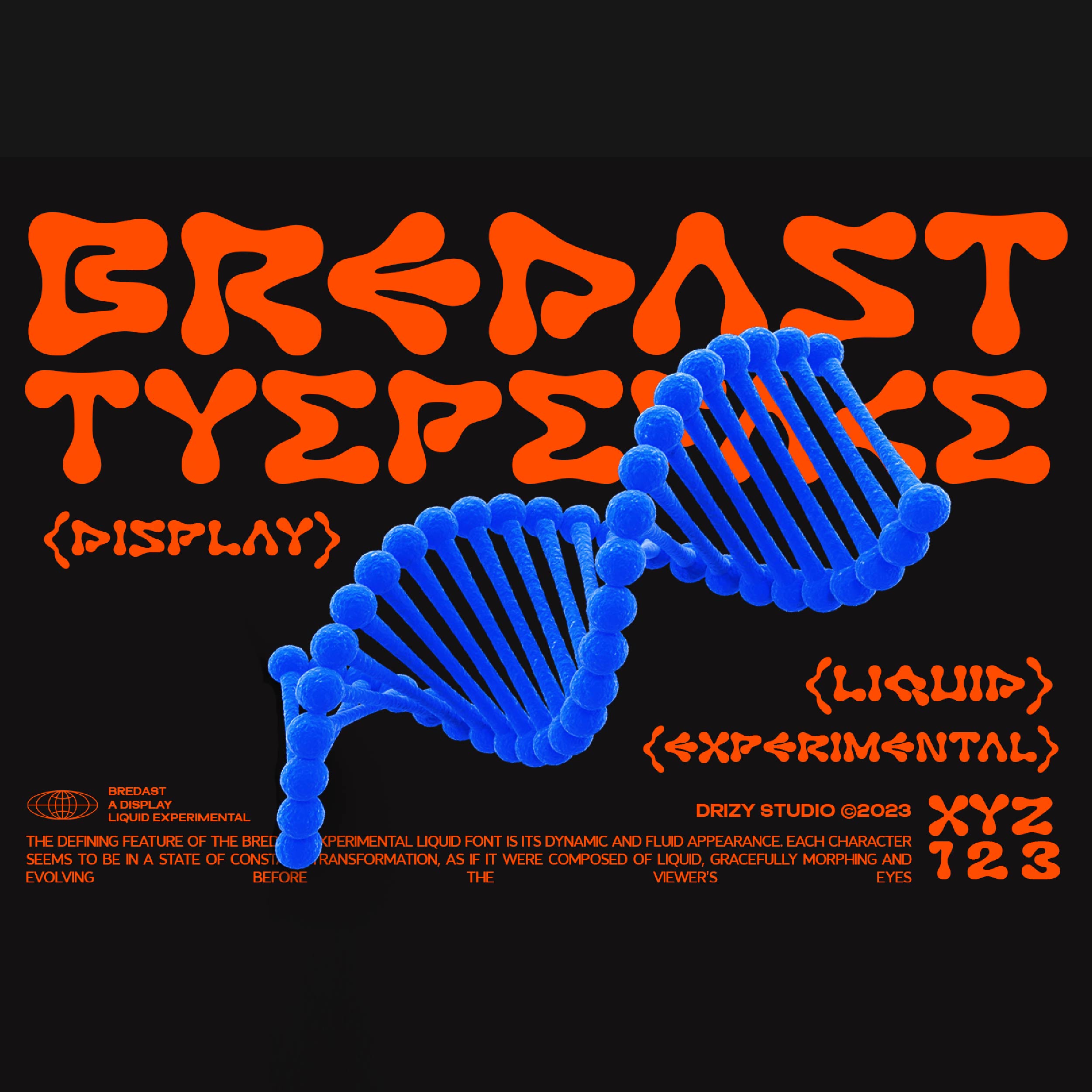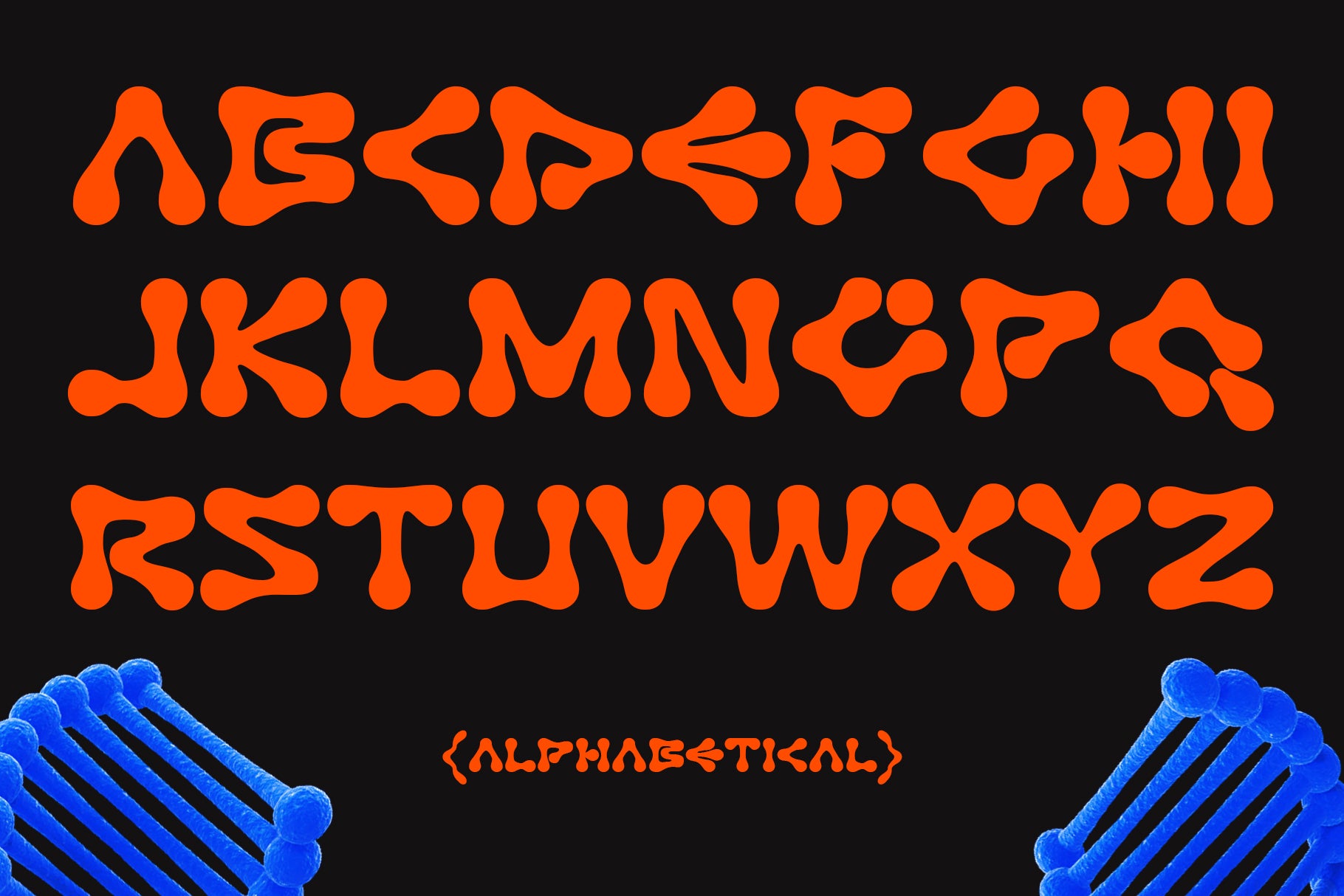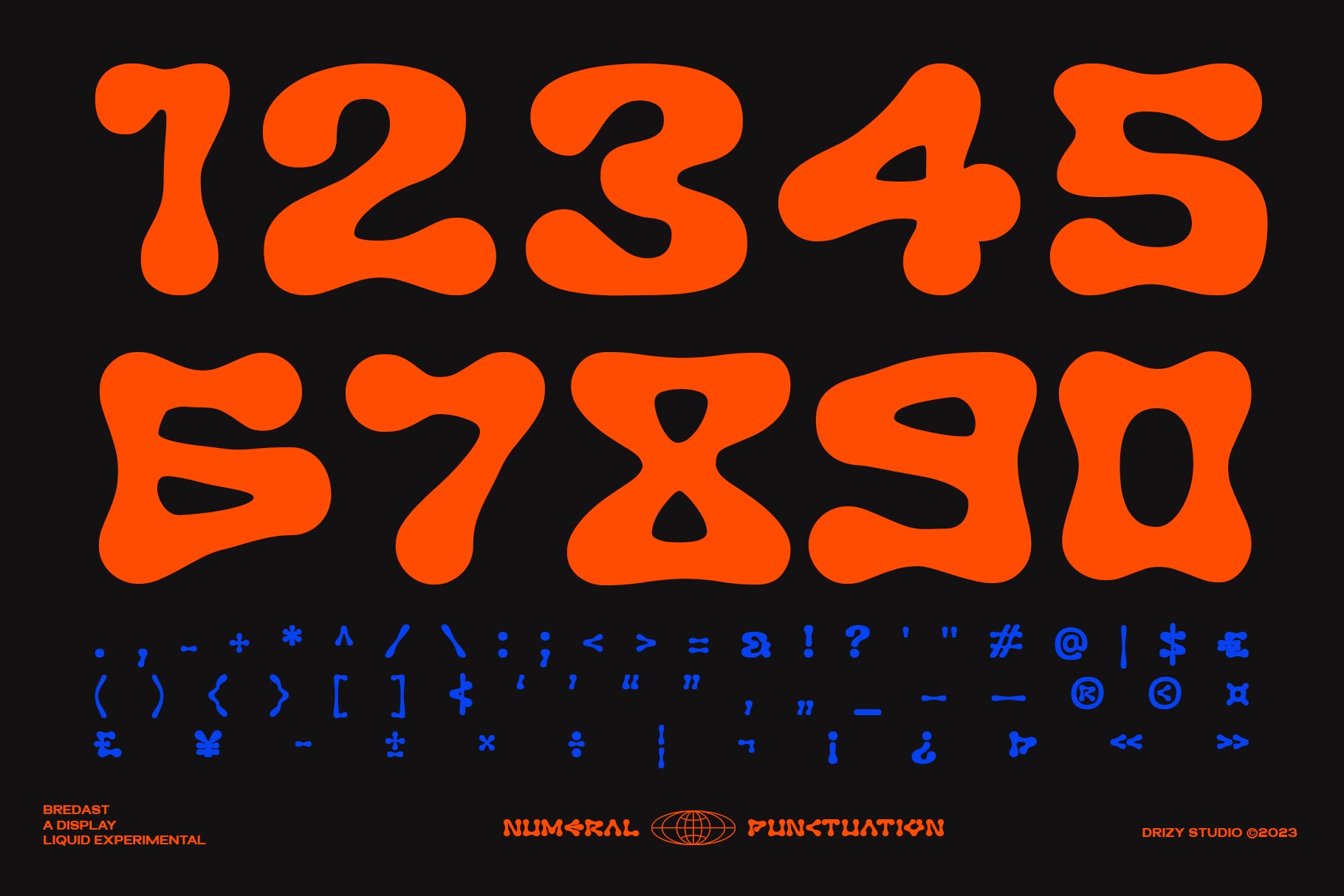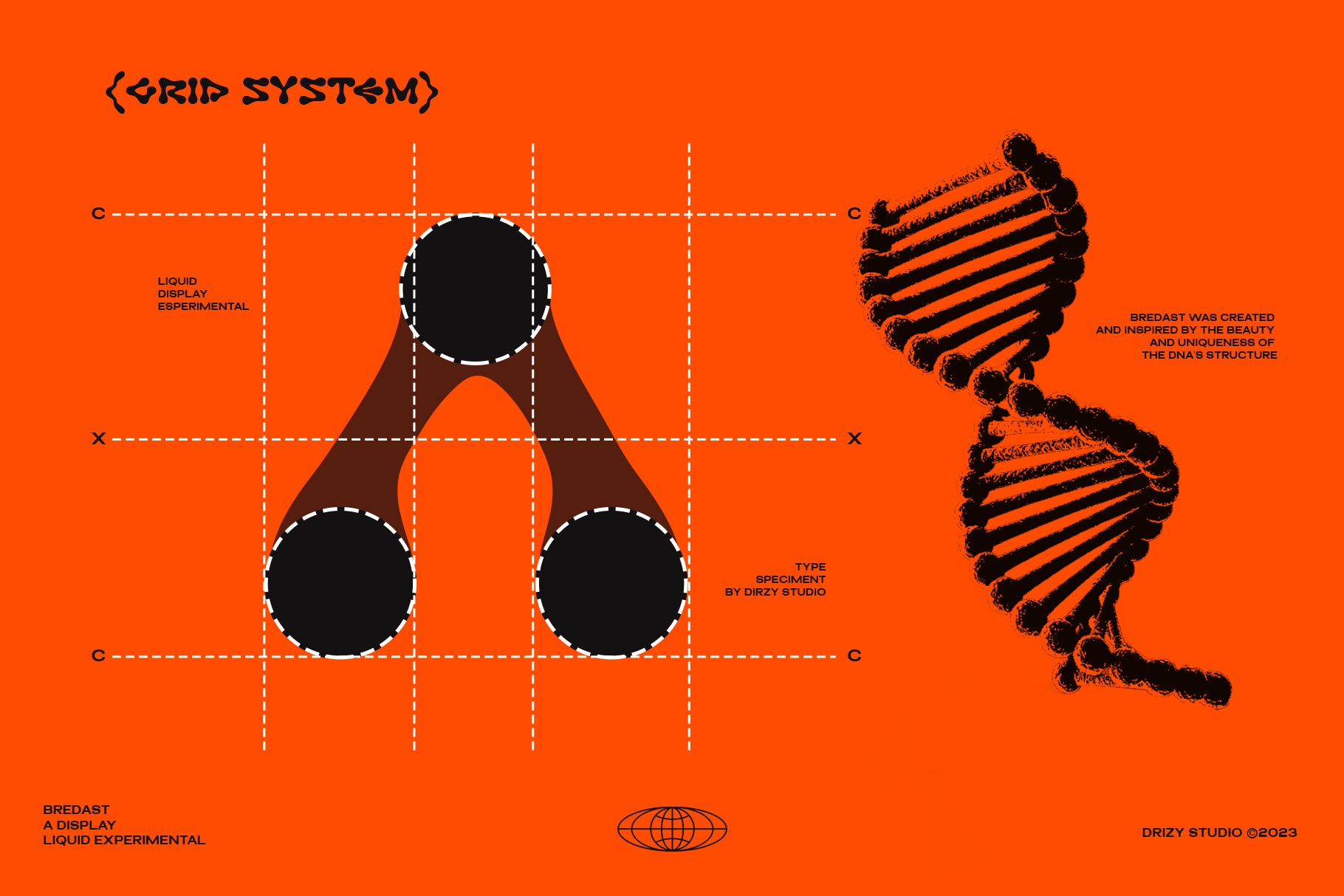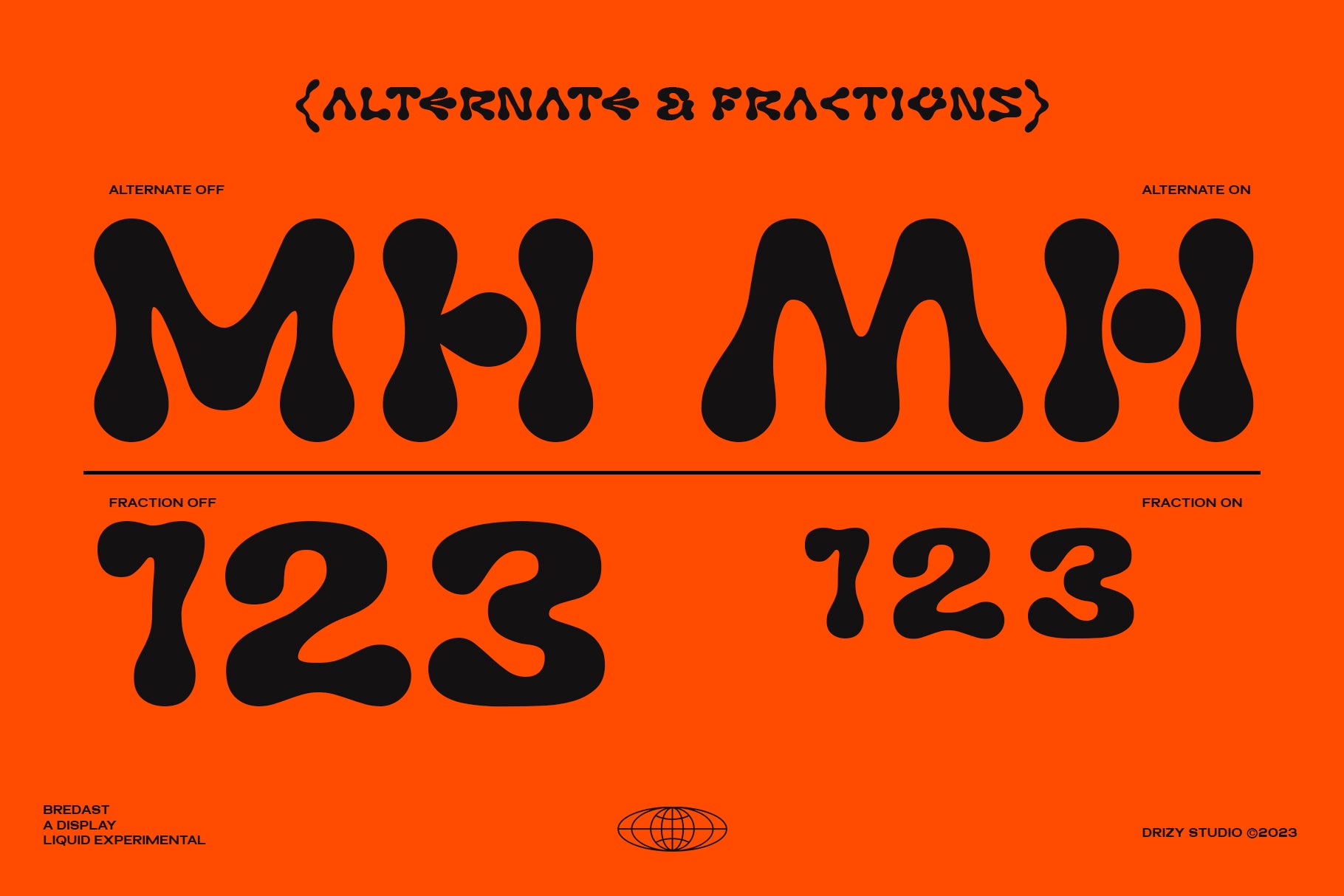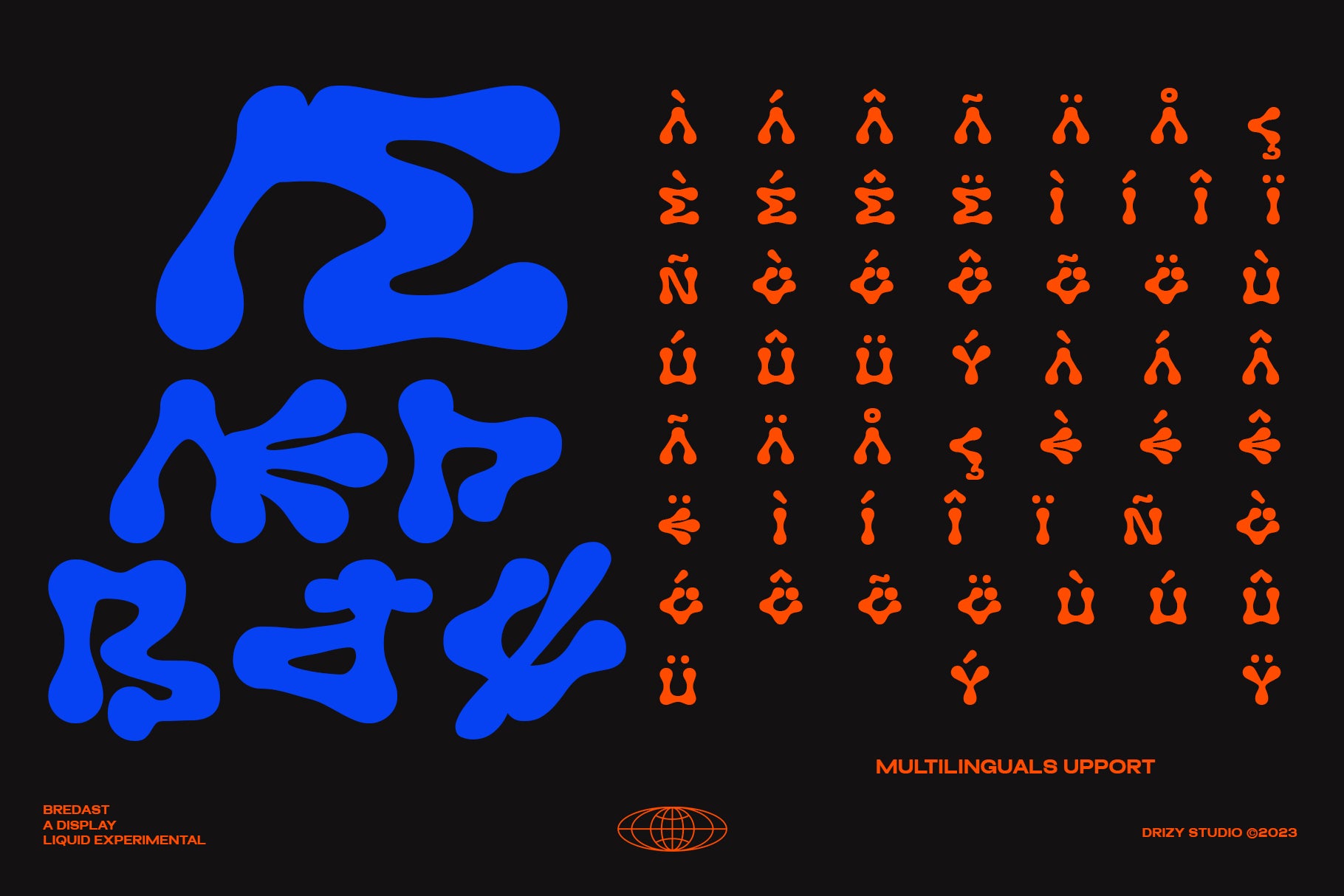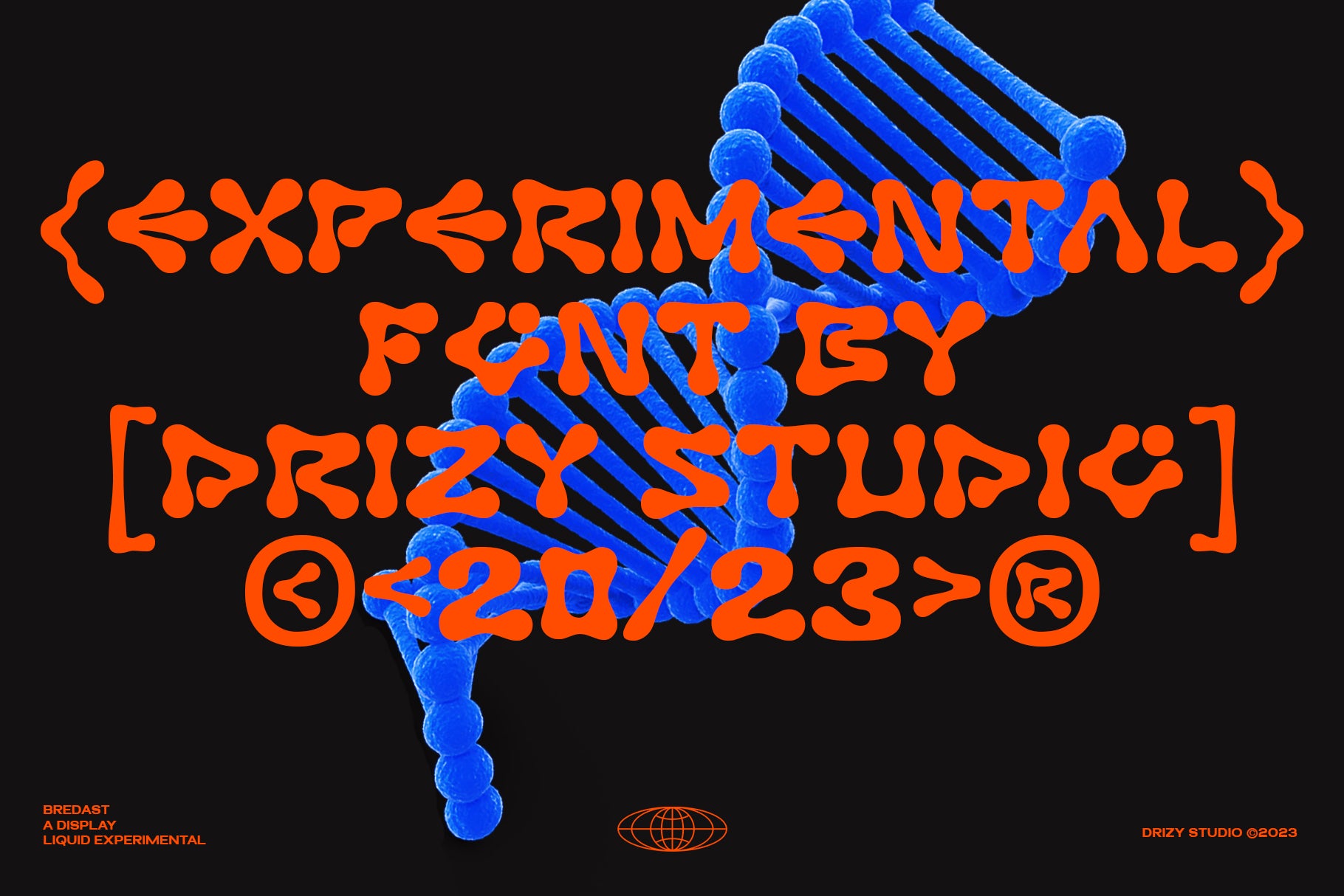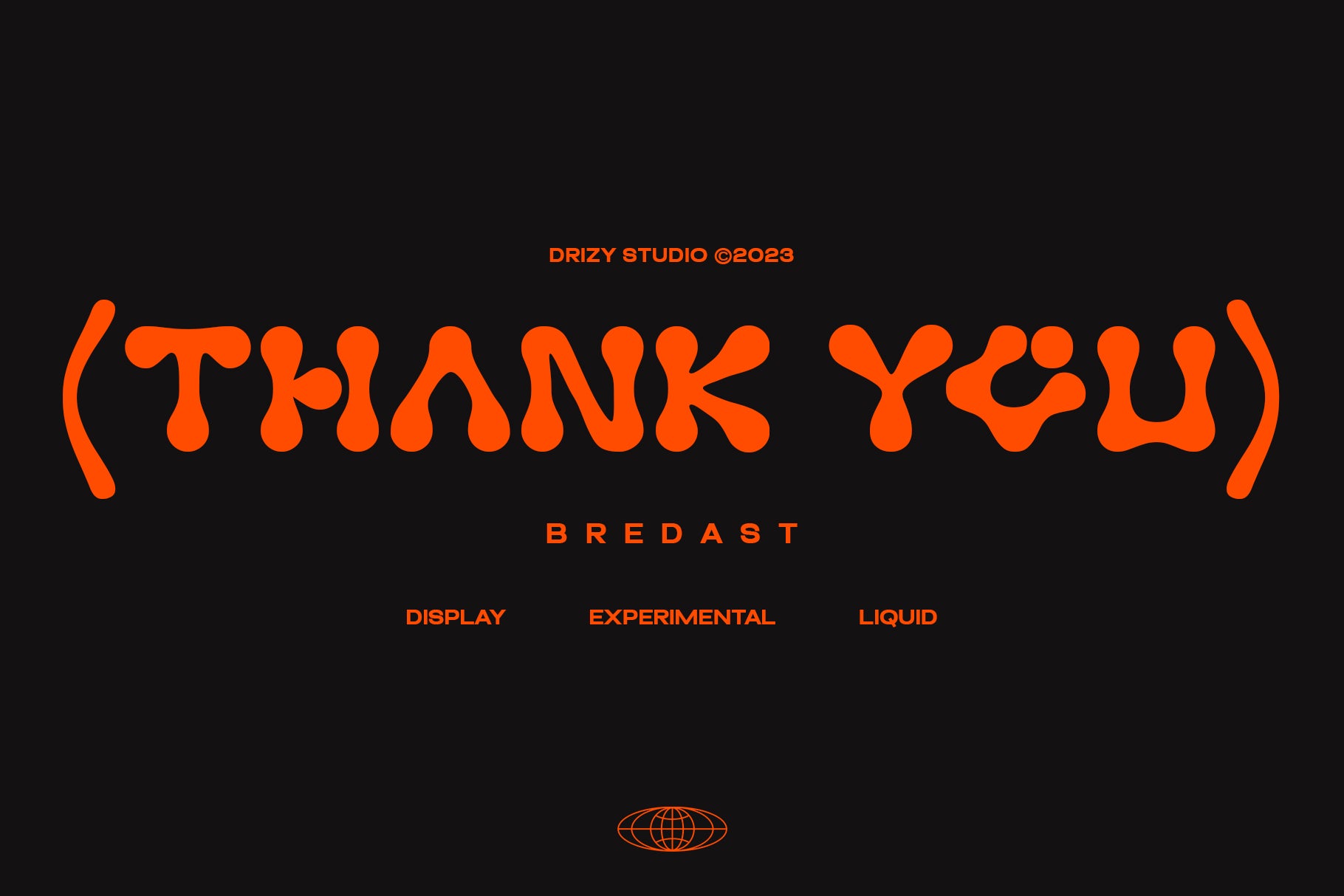
Bredast – Experimental Liquid Font
Step into the future with Bredast – Experimental Liquid Font, an experimental and extraordinary liquid bio tech font that will redefine the boundaries of creativity. Bredast is a fusion of science, technology, and nature, meticulously crafted to evoke a sense of fluidity and organic growth. Its distinctive, liquid like characters seem to morph and flow, embodying the essence of biotechnology and the potential of the natural world. Every curve and contour of Bredast’s characters feels alive, as if morphing and evolving in real time just like the ever advancing world of biotechnology. Its liquid like shapes flow seamlessly, embodying the essence of biological transformation, synthetic evolution, and the limitless potential of organic growth. Perfect for futuristic branding, cutting-edge tech projects, sci-fi aesthetics, and visionary design concepts, Bredast invites you to explore a world where typography breathes, adapts, and reshapes itself. Let your creativity transcend the ordinary and dive into the extraordinary with Bredast
Character Set (All Caps)
Numbers & Punctuation
Alternates “M, H”
Bredast – Experimental Liquid Font is a unique all-caps typeface featuring a liquid bio-tech design, complete with numbers, punctuation, and multilingual support. It includes alternate characters for "M" and "H," making it a versatile choice for various design projects.